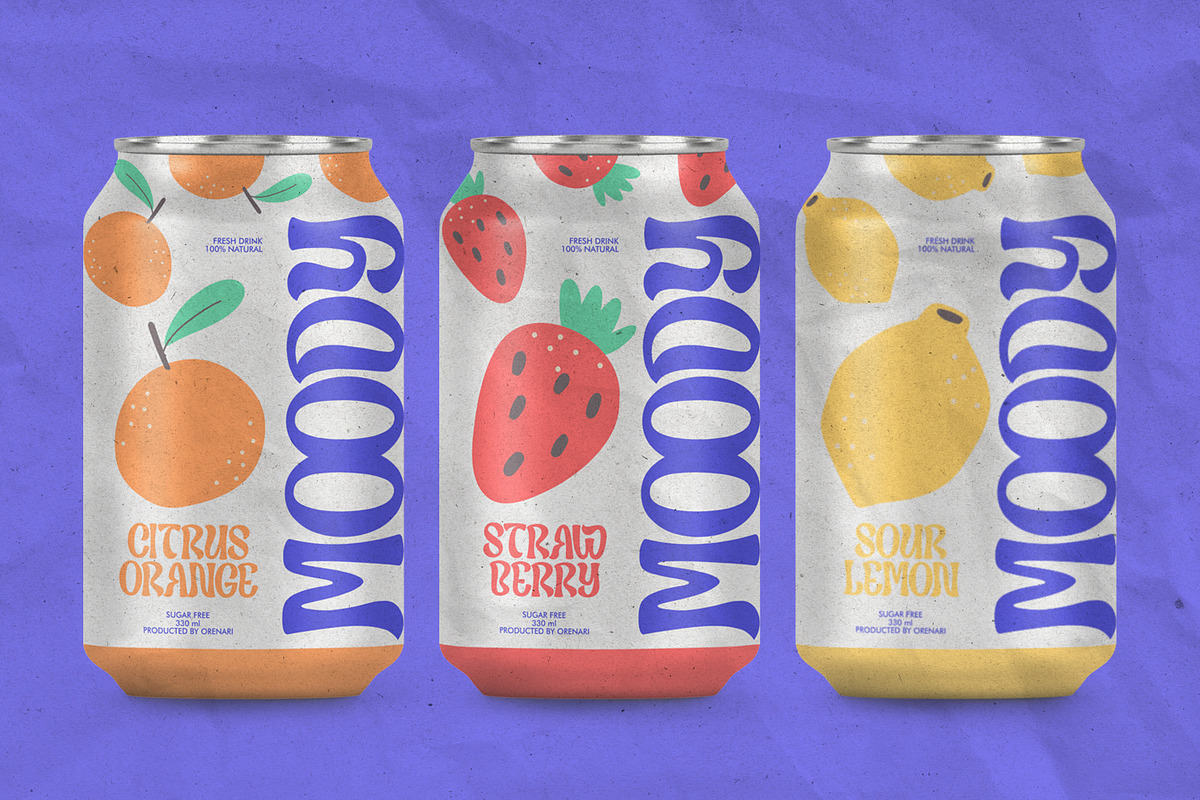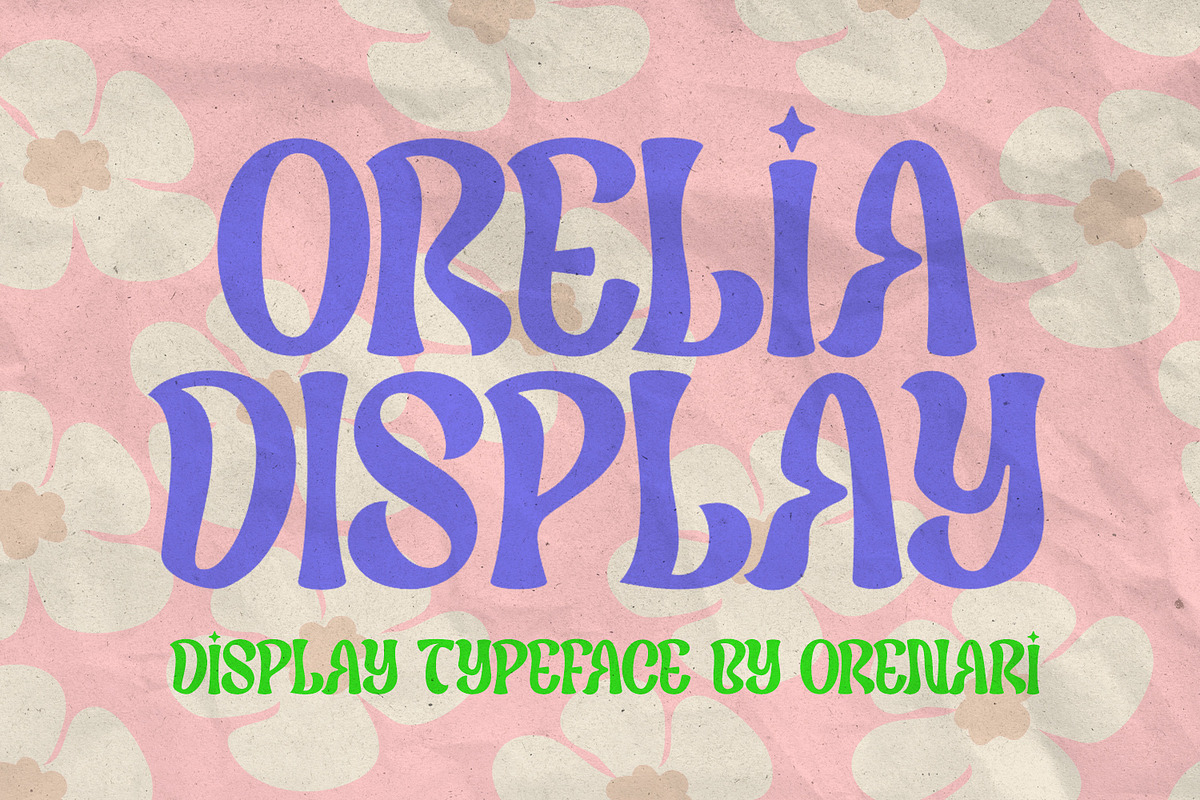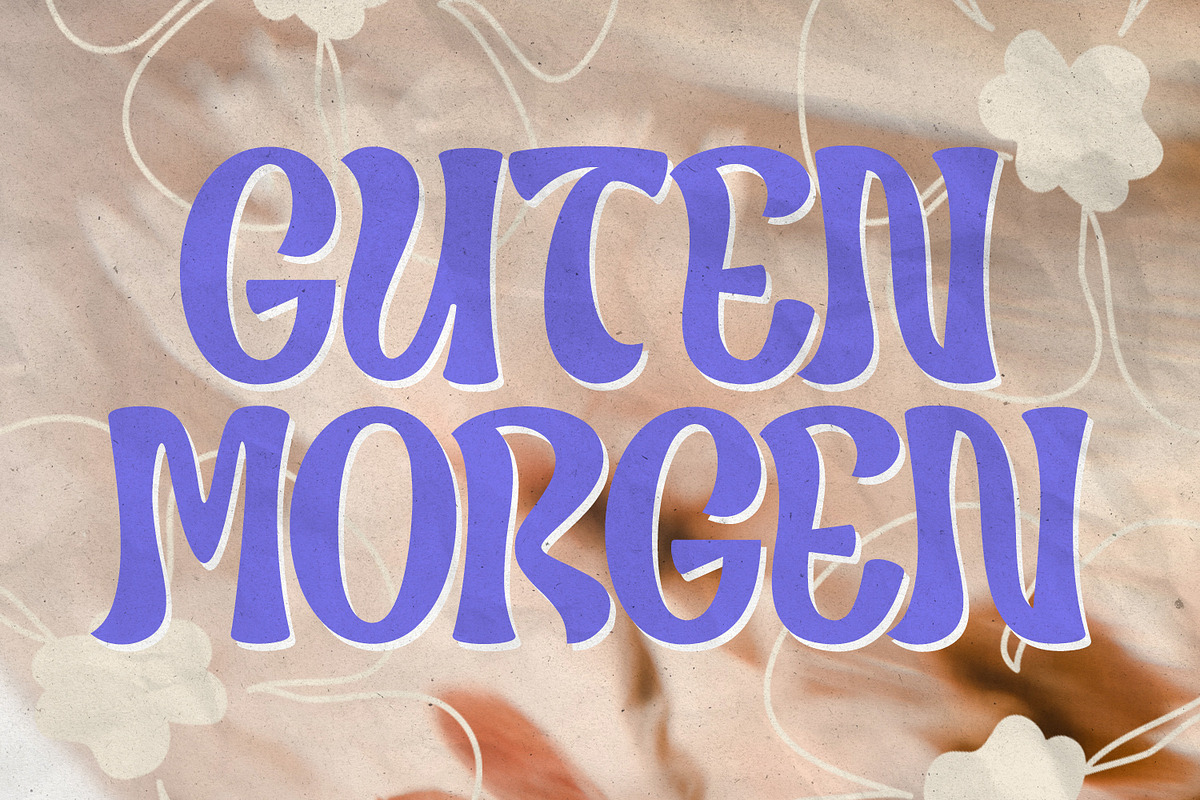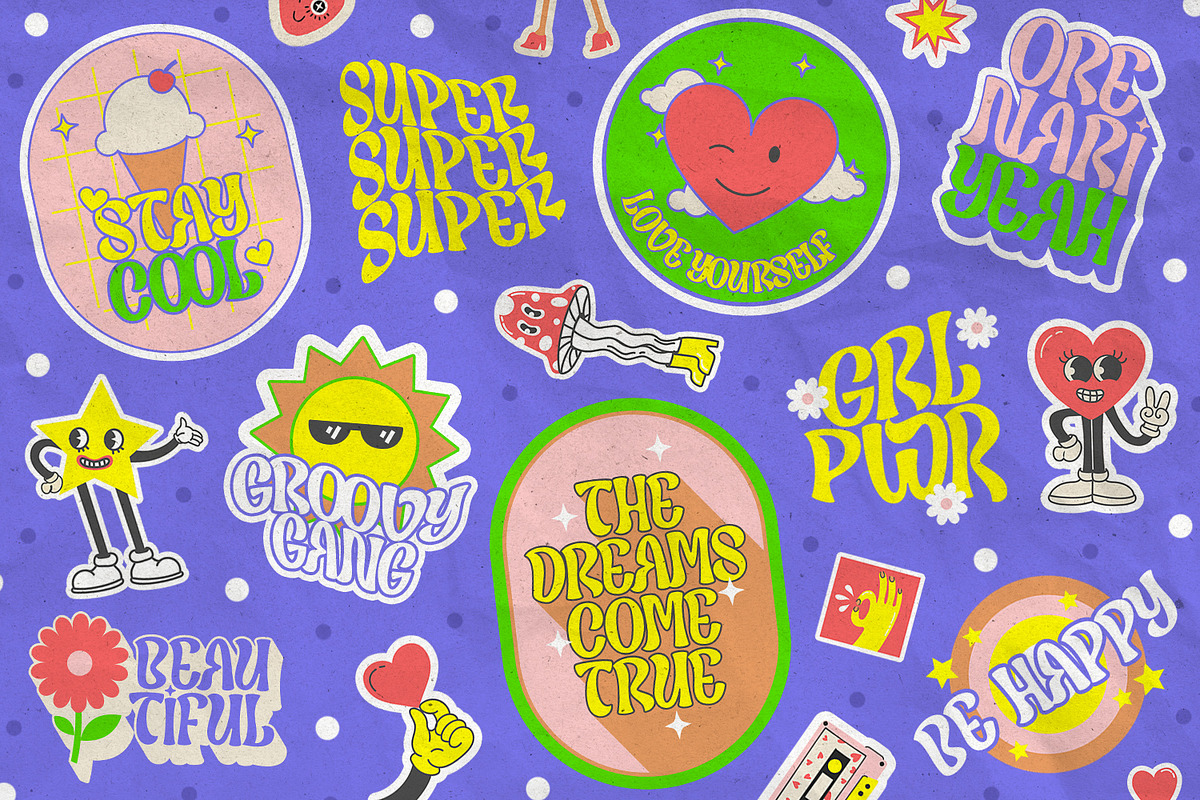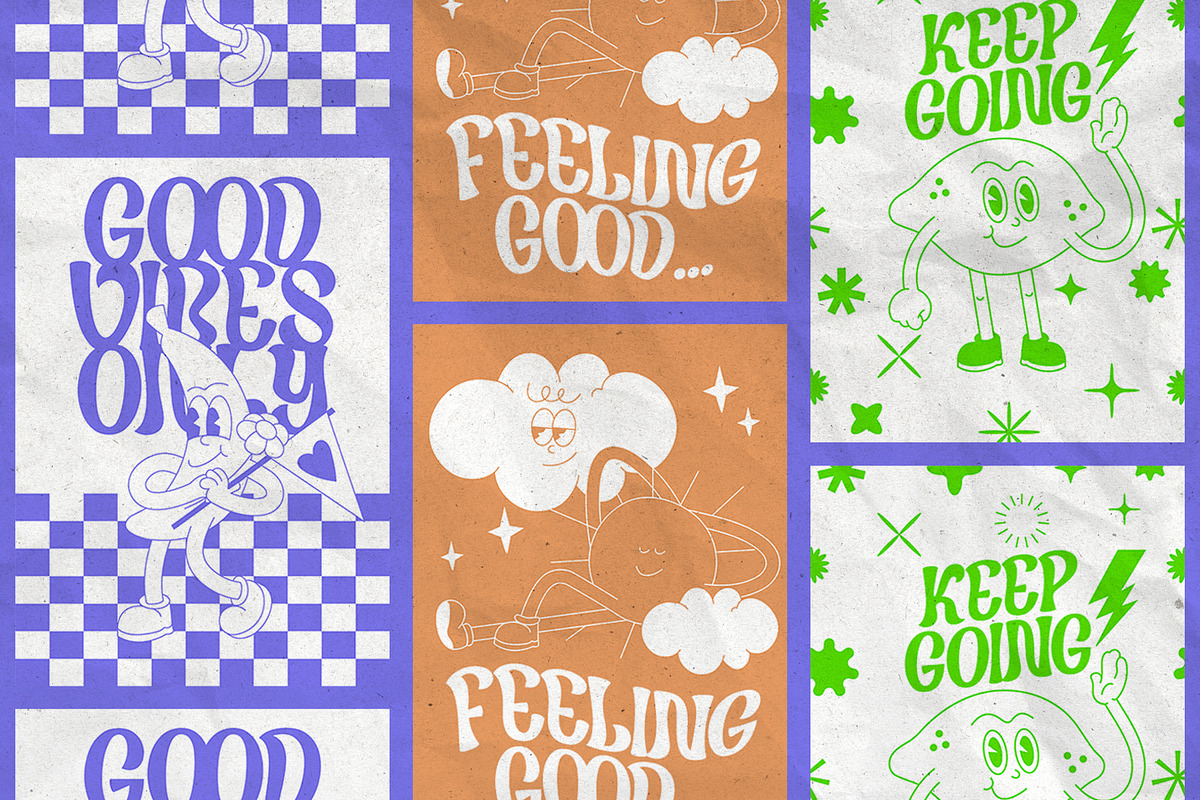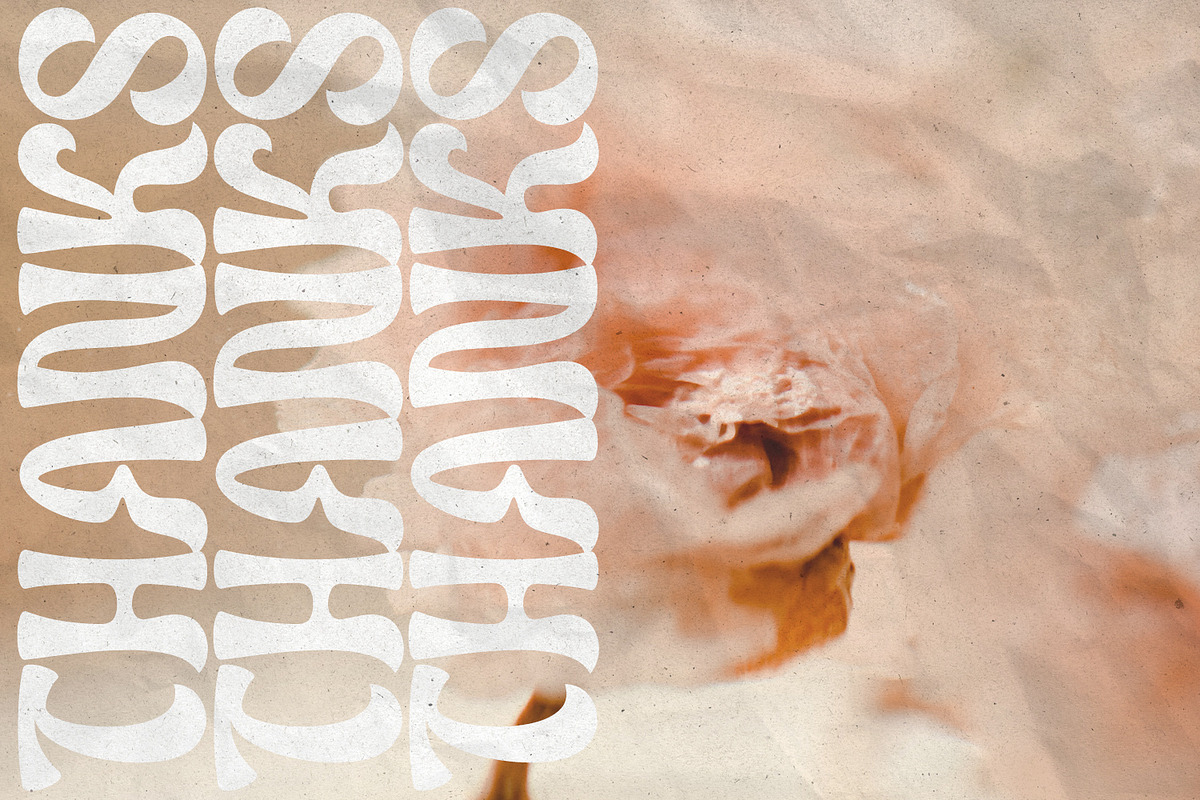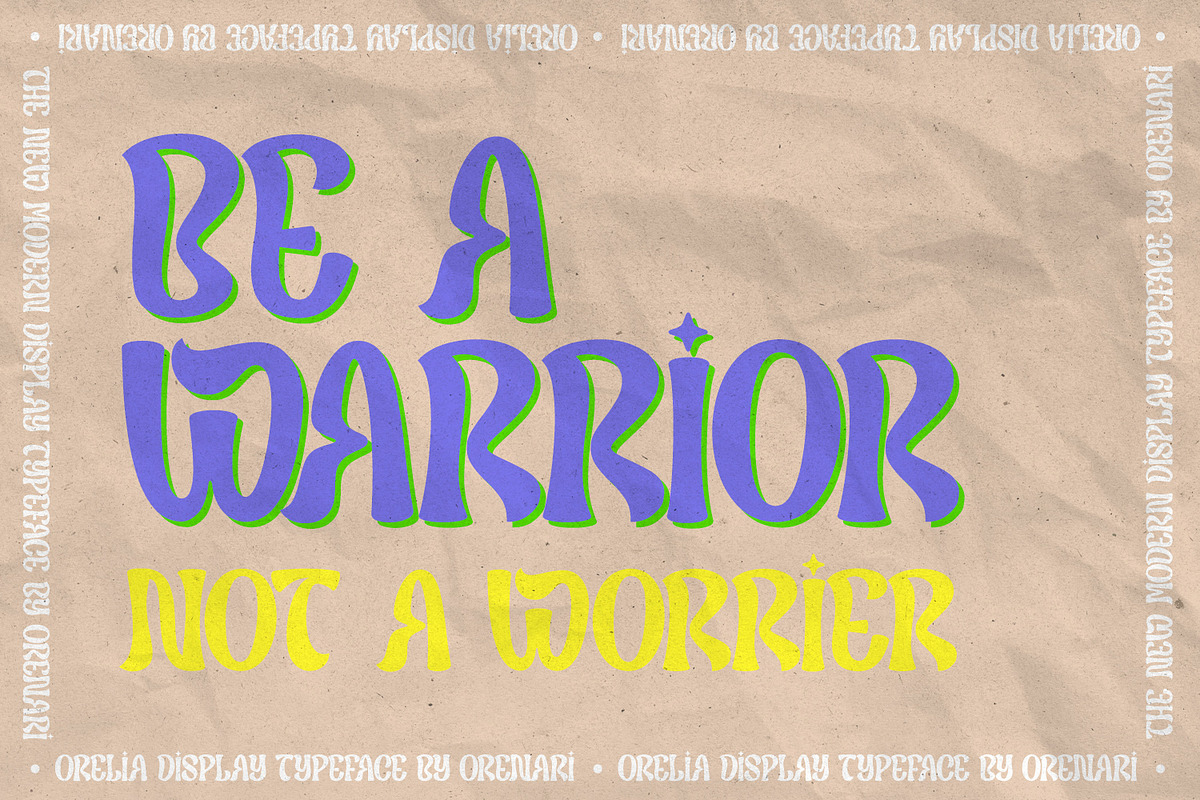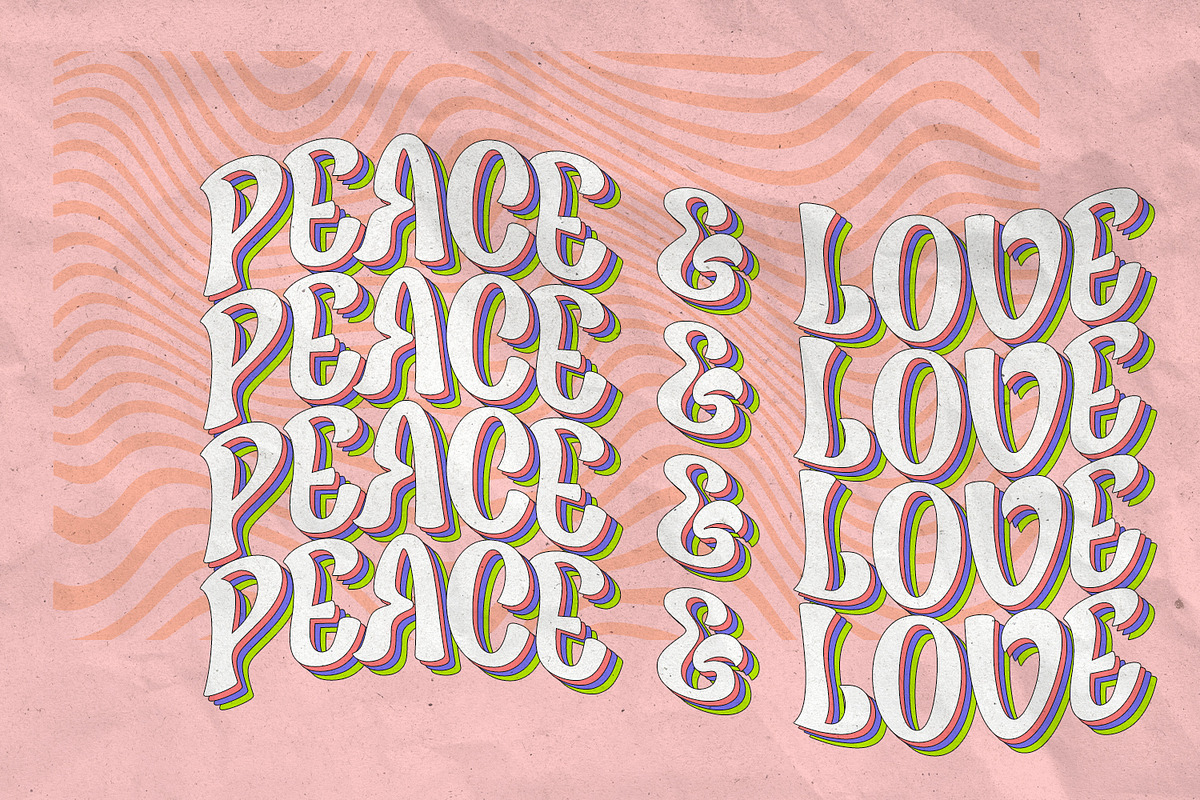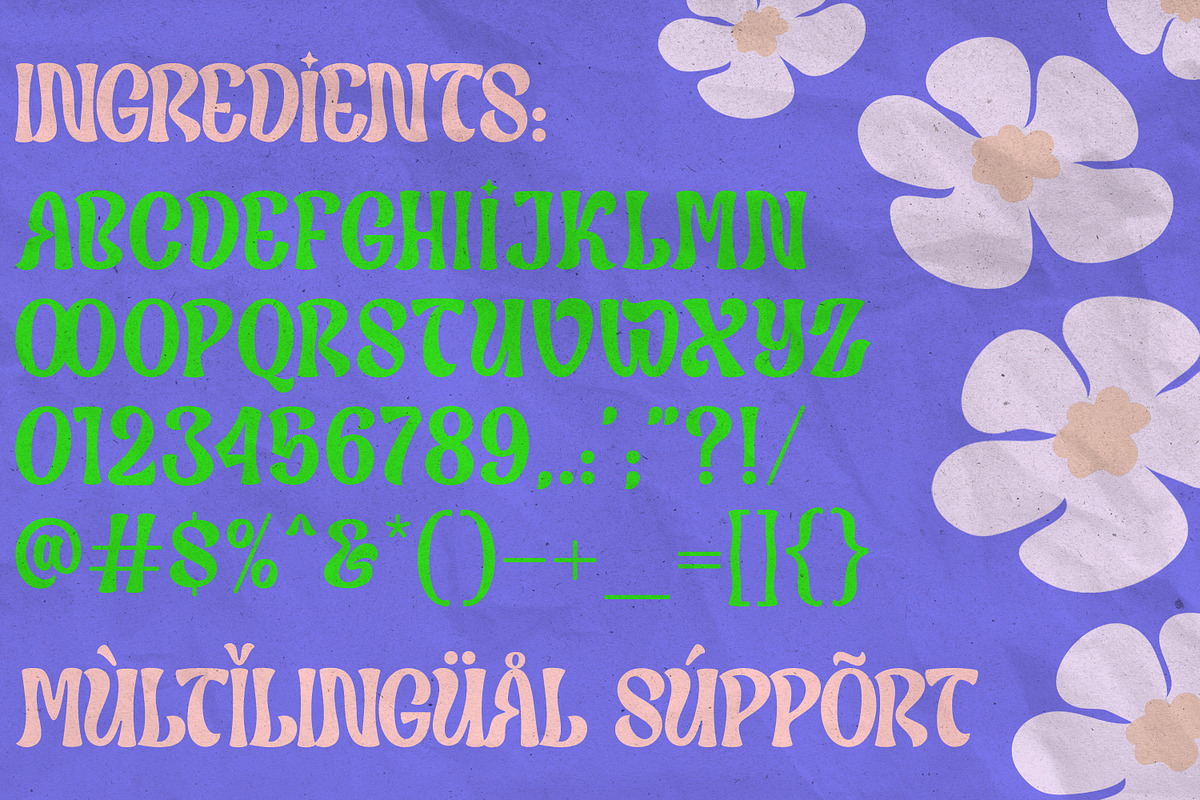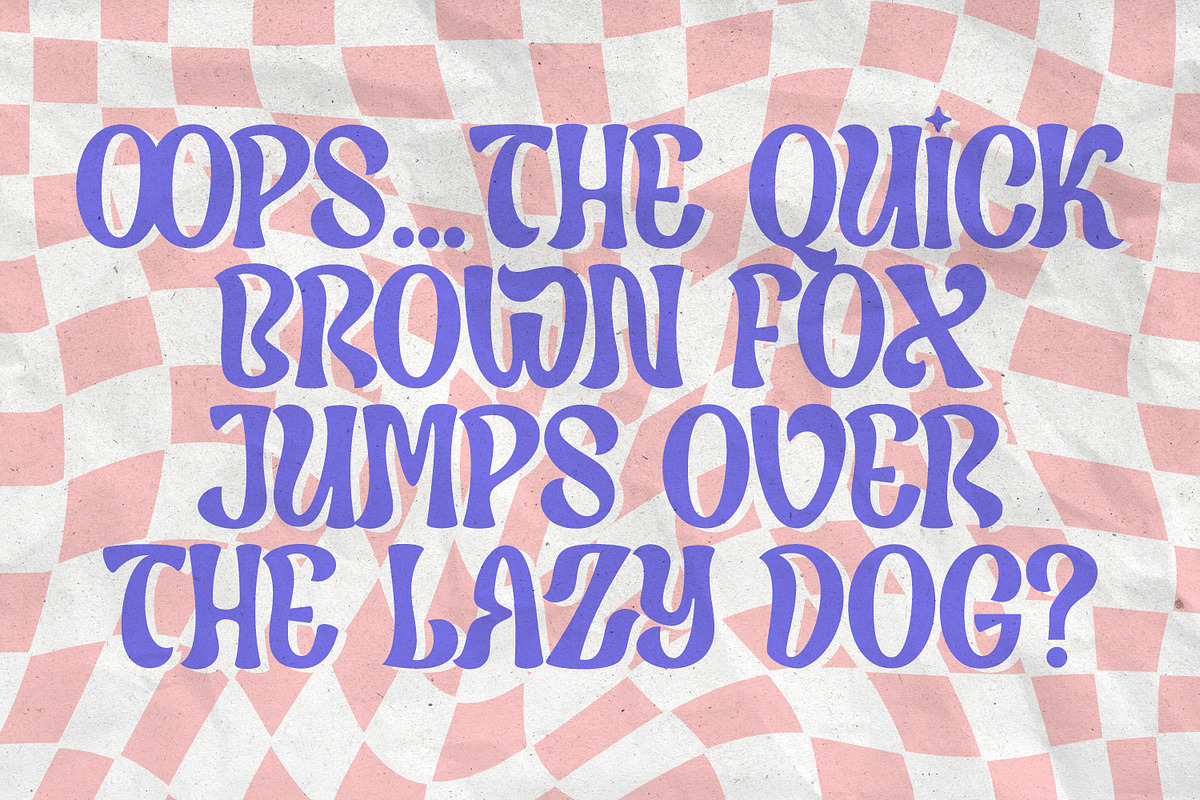
Orelia Display
Introducing our latest retro font design: Orelia Display font, a modern take on classic mid-century typography. Our simple retro font is designed to be humble yet eye-catching, with clean lines and simple shapes that evoke a sense of nostalgia while remaining relevant and contemporary.
This font is perfect for projects that require a touch of retro charm without overwhelming the design. Its understated appearance makes it ideal for minimalist designs, logos, and branding, while the bold letterforms ensure that it still catches the eye.
Crafted with care and attention to detail, our simple retro font is available in a variety of weights and styles, allowing you to customize your design and make it truly unique. Whether you're creating a retro-themed website, designing a product with a vintage twist, or simply want to add a touch of nostalgia to your work, our simple retro font is the perfect choice.